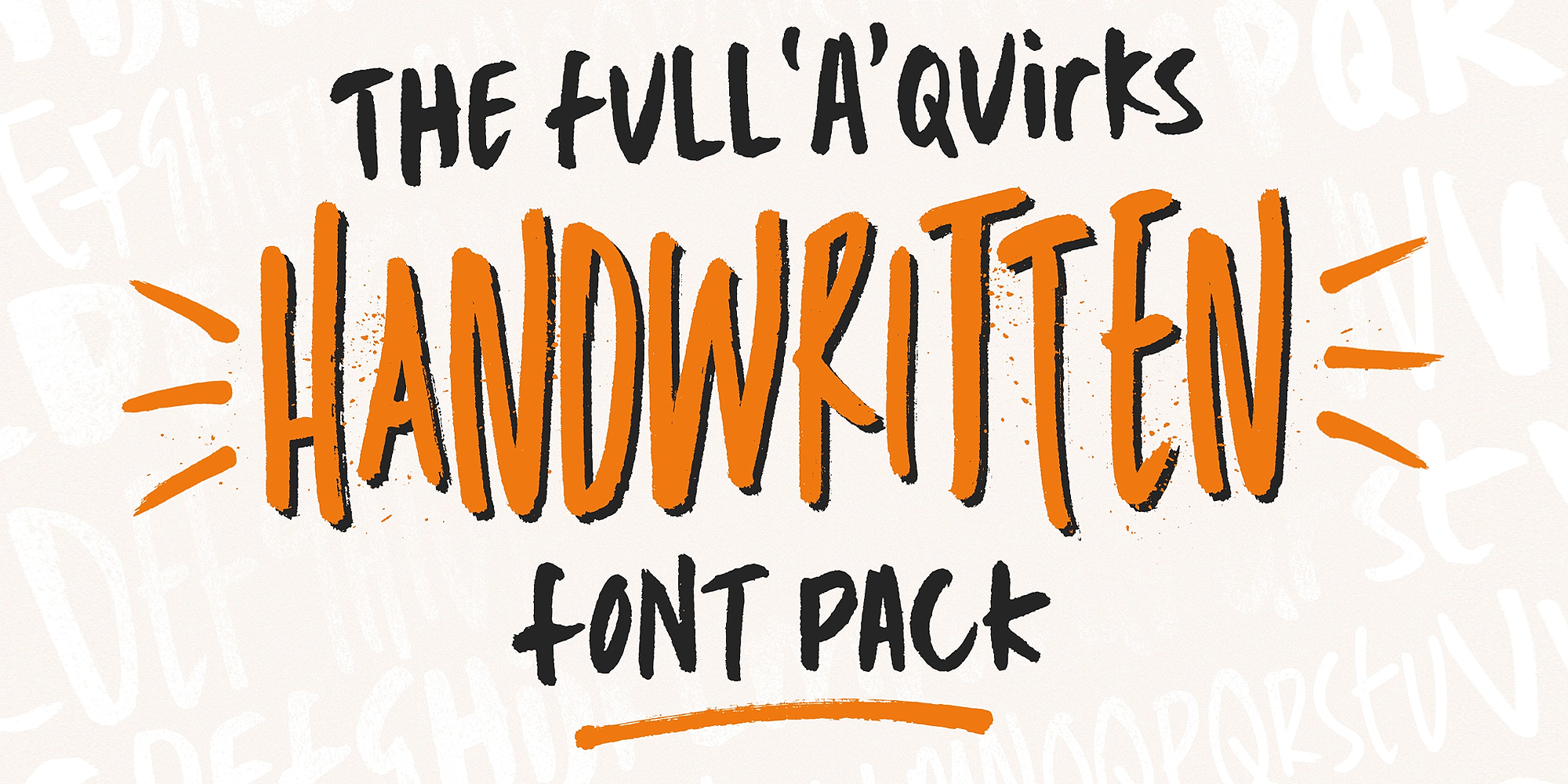
TC Full A Quirks Font is ideal for unique design projects including artistic posters, experimental branding, creative magazines, avant-garde book covers, modern art installations, unconventional logos, contemporary fashion designs, indie music album artwork, gallery exhibitions, and cutting-edge digital media that demands distinctive typographic personality.
What makes TC Full A Quirks Font so exciting is its bold experimental approach that challenges traditional typography conventions while maintaining excellent readability. This innovative typeface features unexpected character variations and creative flourishes that add visual intrigue to any project, making it perfect for designers who want to push boundaries and create memorable, standout designs that capture attention in crowded visual landscapes.
TC Full A Quirks Font typically includes comprehensive font families with regular, bold, light, and extended weights, along with italic variations and special character sets, providing designers with extensive flexibility to create dynamic layouts and sophisticated typographic hierarchies across diverse creative applications.
This distinctive TC Full A Quirks Font Free Download represents the perfect fusion of artistic expression and functional design, offering creative professionals an exceptional tool for projects requiring unconventional yet polished typography. Whether you're developing experimental branding, artistic publications, or innovative digital experiences, this font delivers unique character while maintaining professional standards. The quirky design elements make it particularly valuable for creative industries seeking to differentiate their visual identity through bold, memorable typography that speaks to contemporary design sensibilities and artistic innovation.